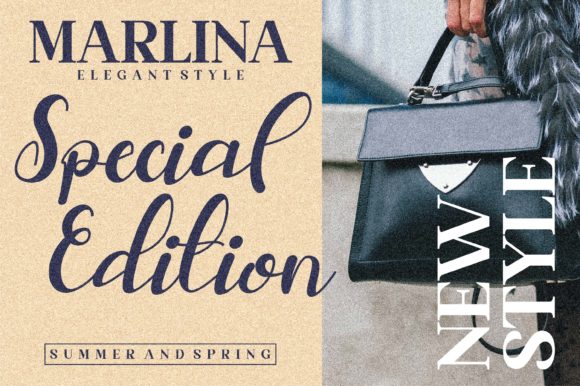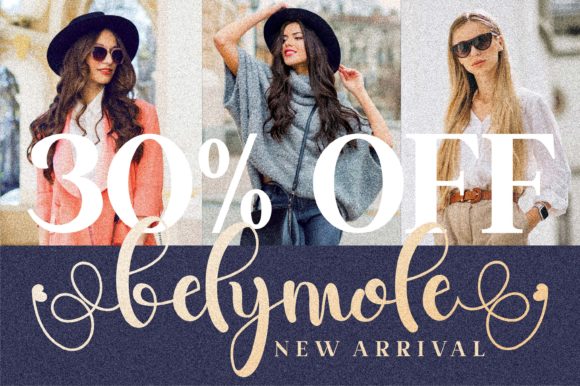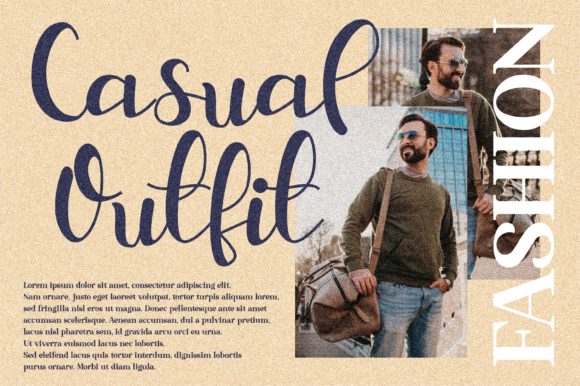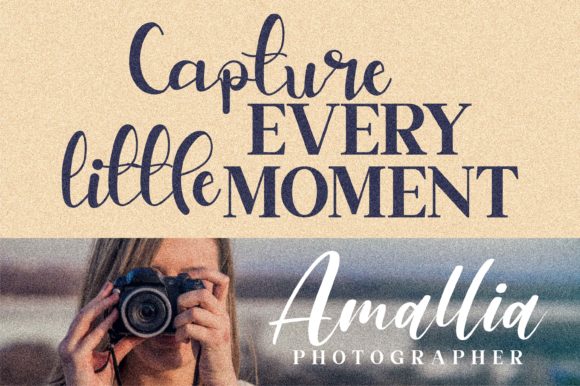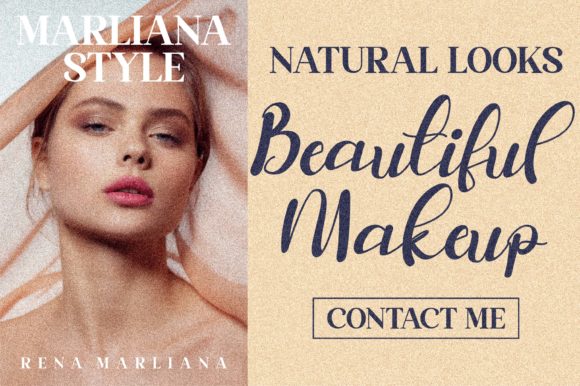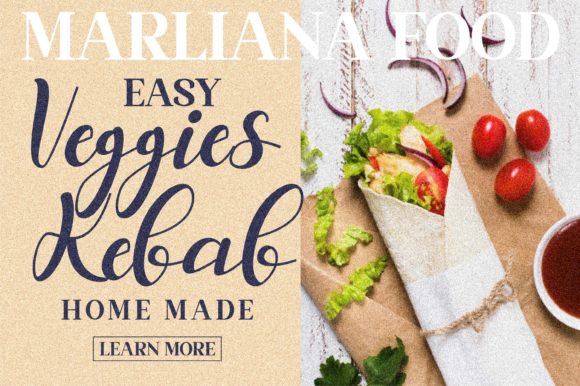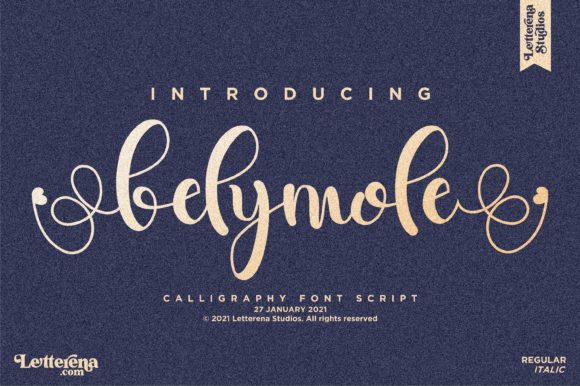
Discover the Charm of Belymole Font: Elevate Your Designs with Elegance
In the world of typography, fonts play a crucial role in conveying the tone and aesthetic of a design. For those seeking a charming and elegant touch, the Belymole font is an excellent choice. This lovely script font is perfect for designers and crafters looking to add a sophisticated flair to their projects. In this article, we’ll delve into the features and benefits of Belymole font, exploring how it can enhance your designs and make your creative process smoother.
What is Belymole Font?
Belymole is a beautiful script font designed to bring a touch of elegance and charm to any design project. Its flowing lines and delicate curves make it an ideal choice for a wide range of applications, from wedding invitations and branding materials to digital content and craft projects. The font’s unique style is sure to capture the attention of your audience and leave a lasting impression.
Key Features of Belymole Font
• Charming Appearance: Belymole boasts a lovely script style that adds a touch of sophistication and elegance to any design.
• PUA Encoded: This font is PUA (Private Use Area) encoded, which means you can easily access all the glyphs and swashes without needing additional software or complicated setup procedures.
• Ease of Use: With Belymole, you can effortlessly incorporate stunning typography into your projects, making it perfect for both beginners and experienced designers.
• Versatility: This font is suitable for a variety of design projects, including but not limited to:
• Branding and packaging
• Digital content and blogs
• Craft projects and DIY tutorials
Benefits of Using Belymole Font
Choosing Belymole font for your design projects comes with several advantages:
• Time-Saving: The PUA encoding ensures that you have immediate access to all glyphs and swashes, saving you time and effort in the design process.
• Consistency: Belymole’s elegant and consistent style helps maintain a professional look across all your design materials.
• Customization: With a range of glyphs and swashes at your disposal, you can customize your text to fit your project’s unique needs and style.
Belymole font offers a unique blend of charm, elegance, and versatility, making it an excellent addition to any designer’s toolkit. Its PUA encoding ensures ease of use, while its beautiful script style is sure to elevate your designs. Whether you’re working on a wedding invitation, a brand identity, or a craft project, Belymole provides the perfect typographic solution. Discover the charm of Belymole font today and take your designs to the next level.